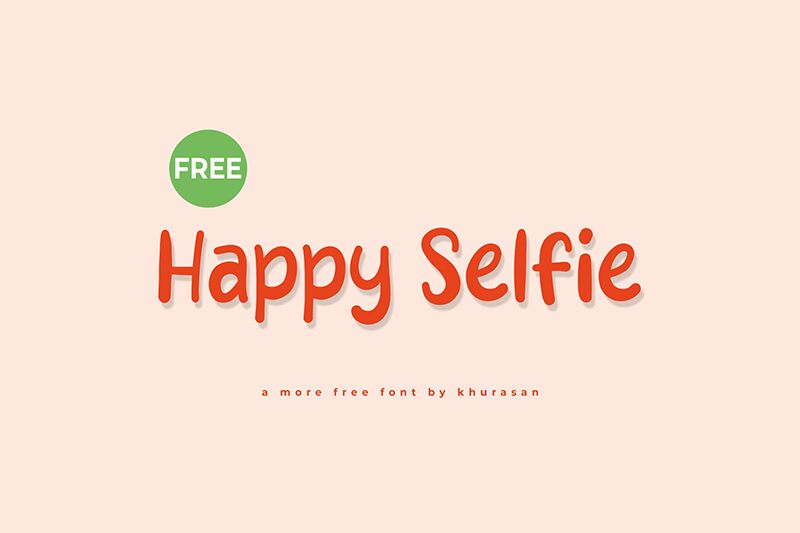
Happy Selfie
Happy Selfie font by Khurasan is a cartoon display font that invites joy into your designs. It is casual, friendly, and approachable with a modern and youthful personality. The font perfectly embraces simplicity alongside playfulness for an overall non-serious look that users can experiment with both in terms of size and color.
Add a cheerful attitude to greeting cards, T-shirt designs, children’s books cover, posters, social media posts, mobile application interfaces, product packaging design ideas, branding projects for toys or snacks brands. A quote on a cup or tote bag as well as website landing pages all qualify for being freshened up with this free font too!